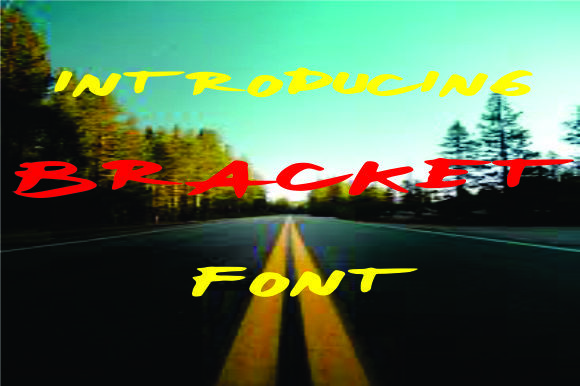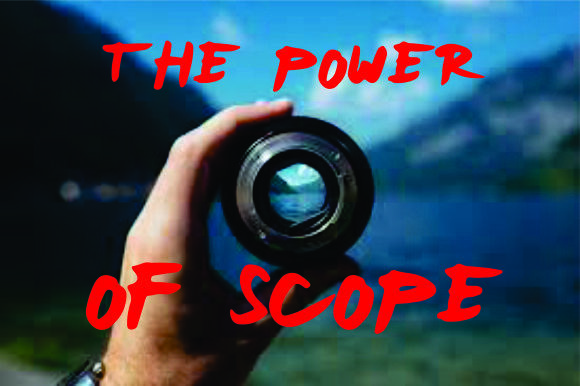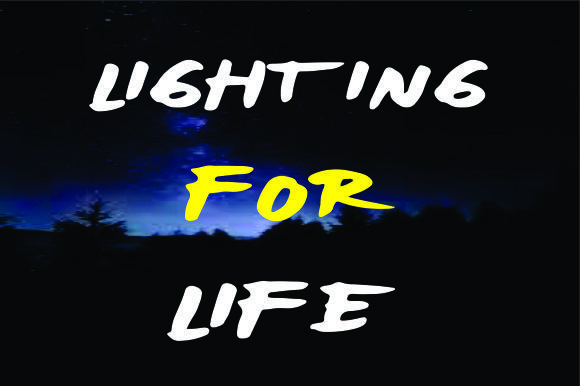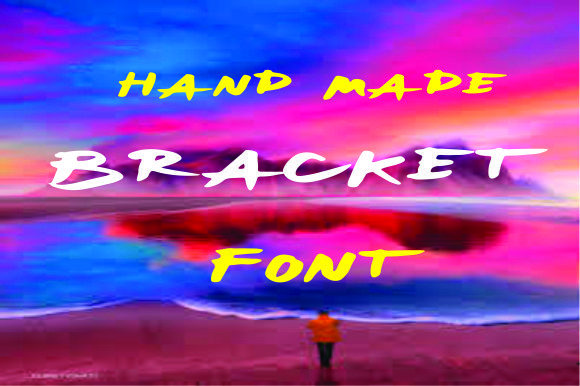
The Bracket Font: A Bold and Unique Display Font for Creative Projects
I’ll never forget the time I was working on a project for a client who wanted a bold, eye-catching font to deliver their message with confidence and style. I scoured the internet for hours, trying out different fonts, but none seemed quite right. That was until I stumbled upon the Bracket font. With its unique and edgy design, it immediately caught my attention and solved my font woes. In this article, I’ll share my experience with the Bracket font, its features, and how to use it on different platforms.
An Honest Review of Bracket Font
What I Love About Bracket Font
- ✨ Bold and Unique Design: The Bracket font is a showstopper, with its bold and unique design that’s perfect for making a statement.
- ✅ Highly Versatile: This font can be used for a wide range of projects, from posters and flyers to social media graphics and presentations.
- 💥 Attention-Grabbing: The Bracket font is designed to grab attention and deliver your message with confidence and style.
While the Bracket font is an excellent choice for many projects, there are a few quirks to be aware of:
- 🤔 Limited Legibility at Small Sizes: Like many bold and decorative fonts, the Bracket font can be difficult to read at small sizes.
- ⚠️ Not Suitable for Body Text: Due to its bold and decorative nature, the Bracket font is not suitable for body text or long-form content.
The Designer Inspiration Behind Bracket Font
The Bracket font was designed with the goal of creating a bold and unique display font that would grab attention and deliver messages with confidence and style. The designer wanted to create a font that would be highly versatile and suitable for a wide range of projects, from posters and flyers to social media graphics and presentations.
Q: What is the Bracket font best used for?
A: The Bracket font is best used for titles, headings, and short-form content where you want to make a bold statement.
Q: Is the Bracket font easy to read?
A: The Bracket font is designed to be attention-grabbing, but it may not be the most legible font at small sizes.